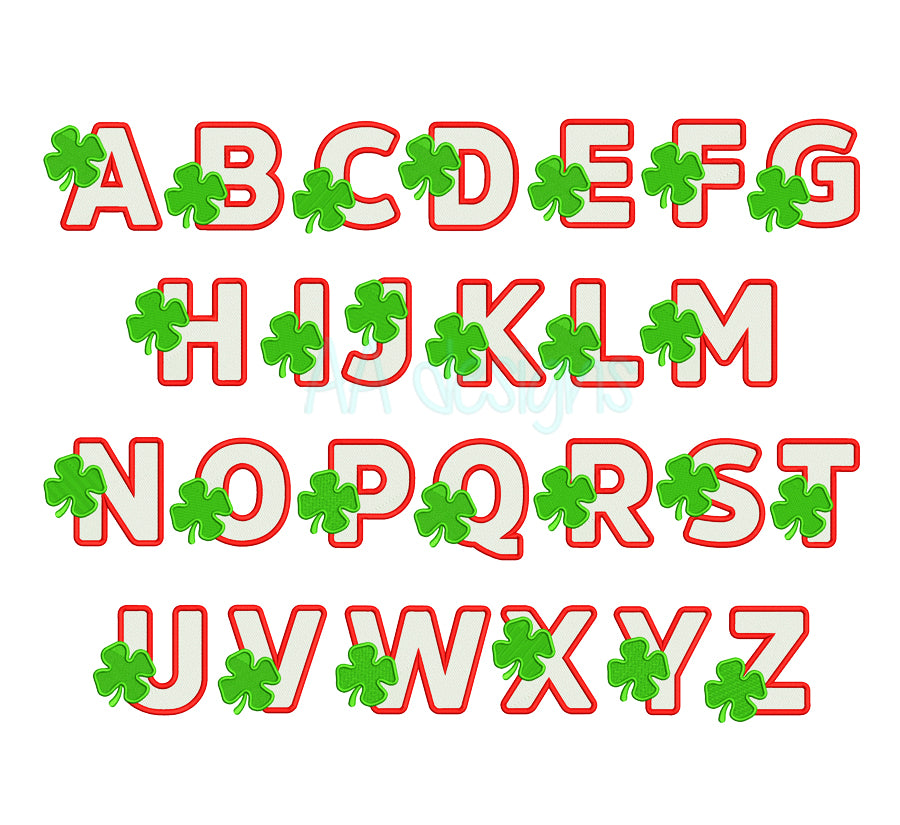
Shamrock embroidery digital font. Embroidery alphabet with shamrock for St Patrick day. BX format
Shamrock embroidery digital font.
This font comes with letters in 3 sizes, A-Z (Upper case)